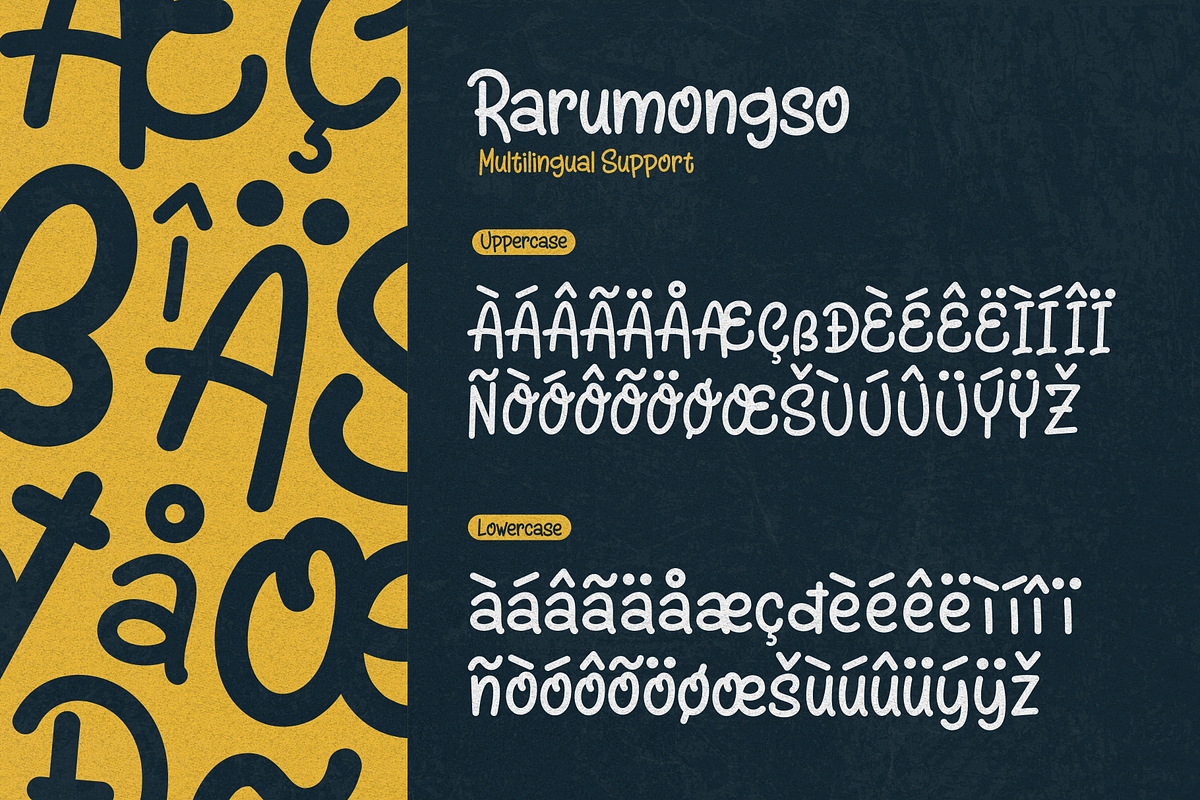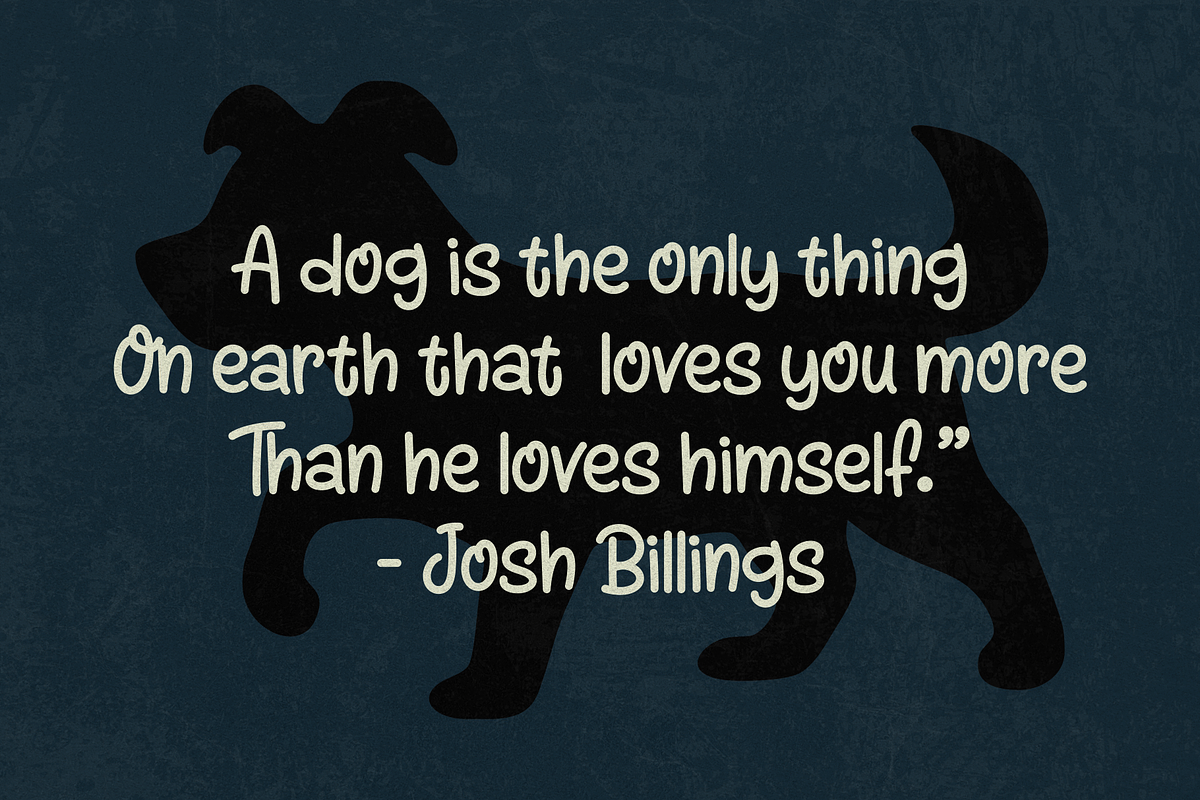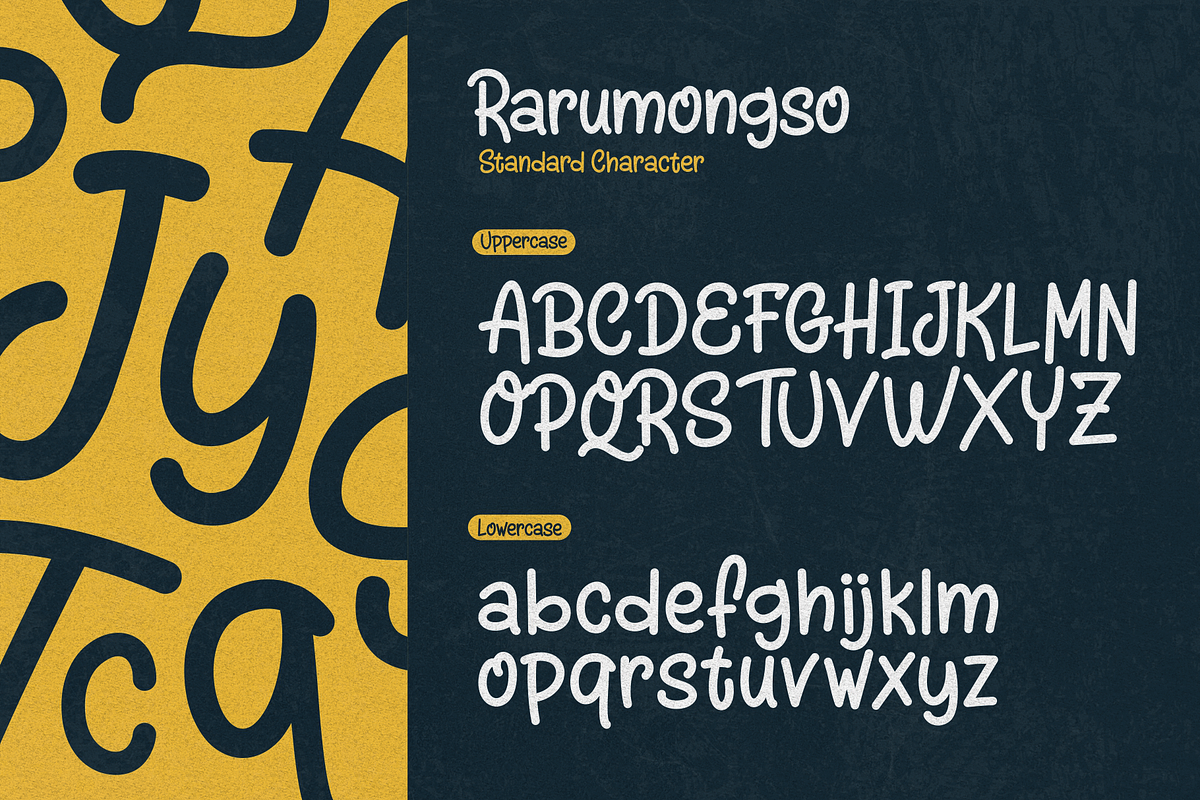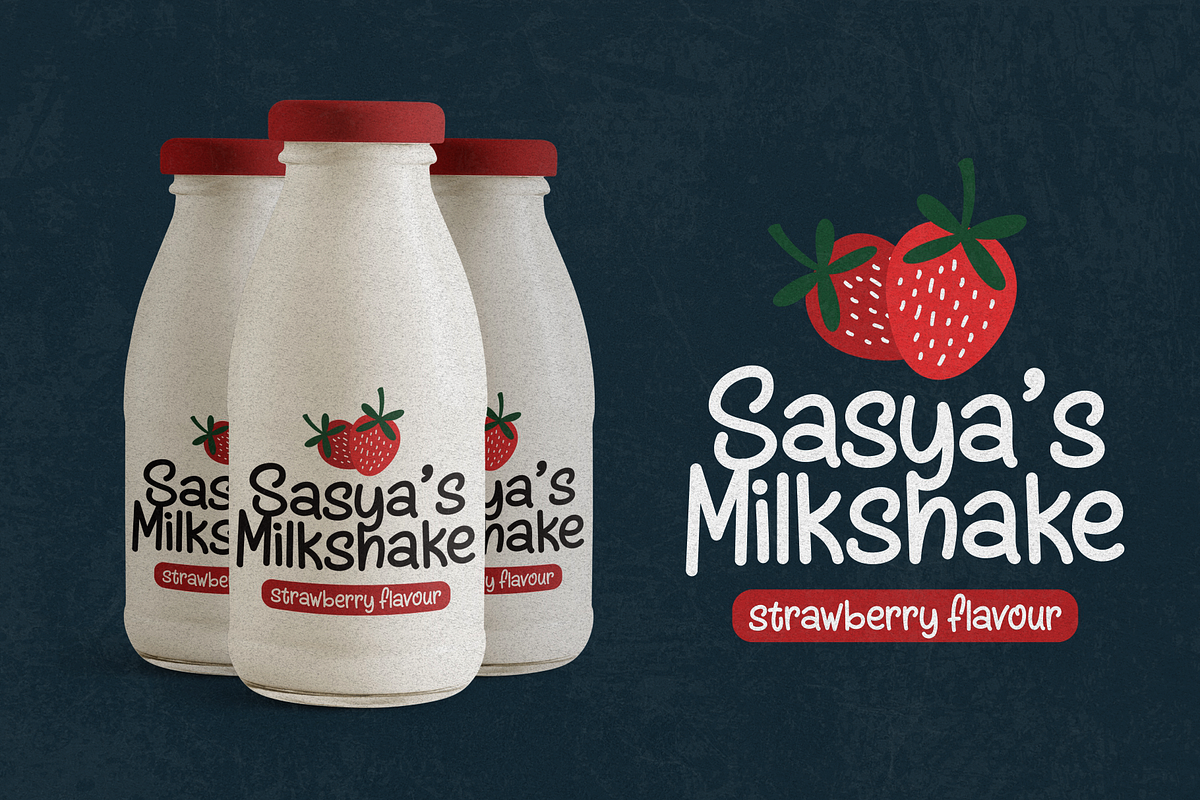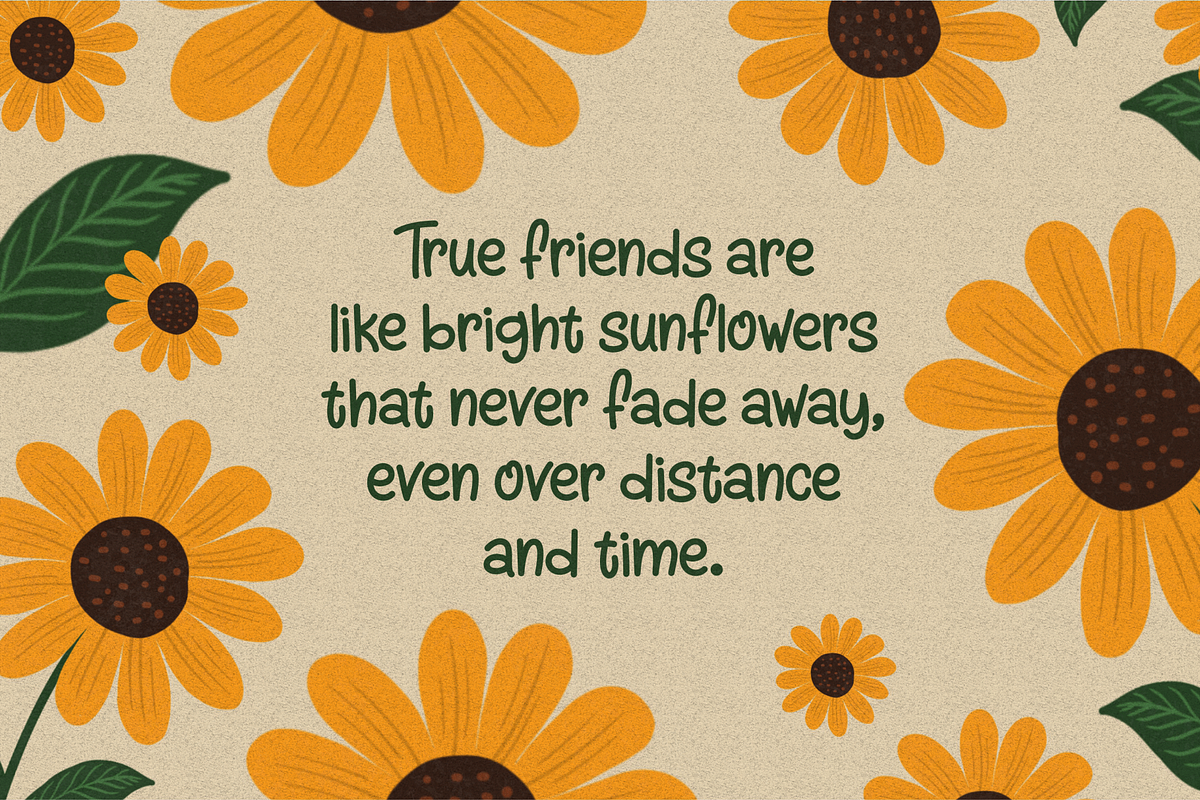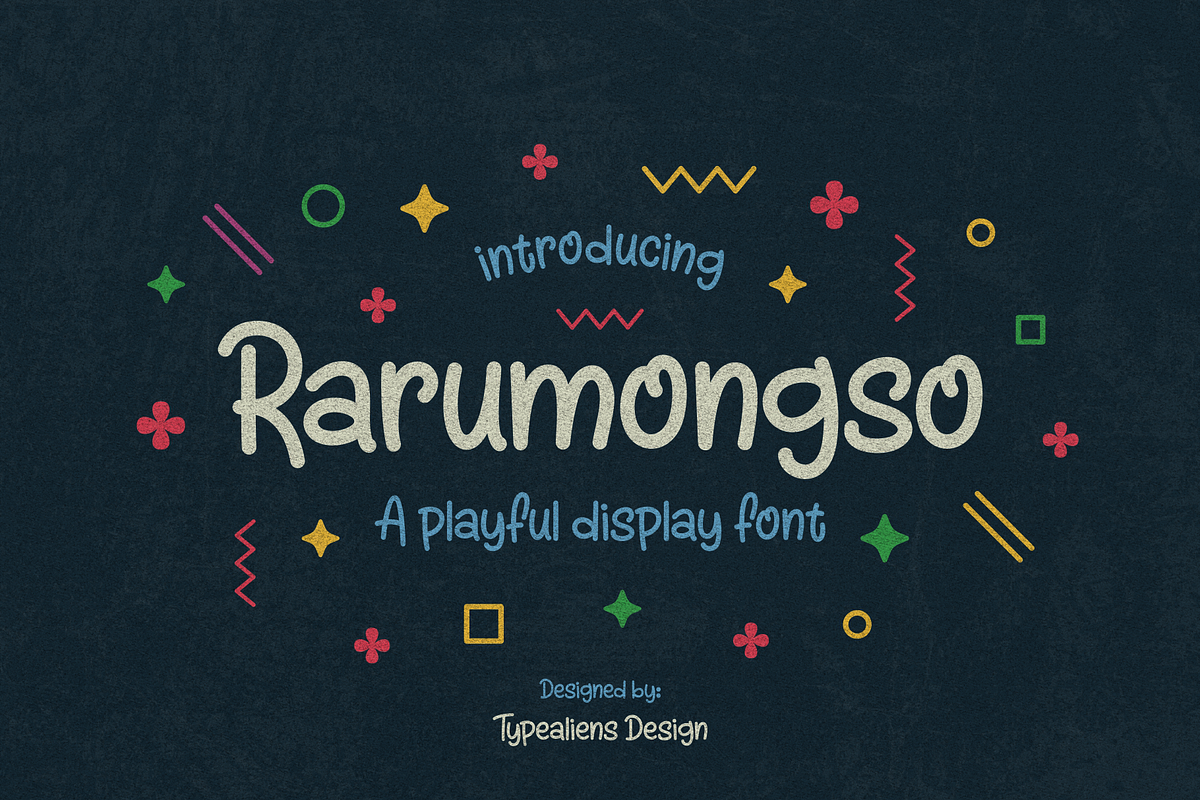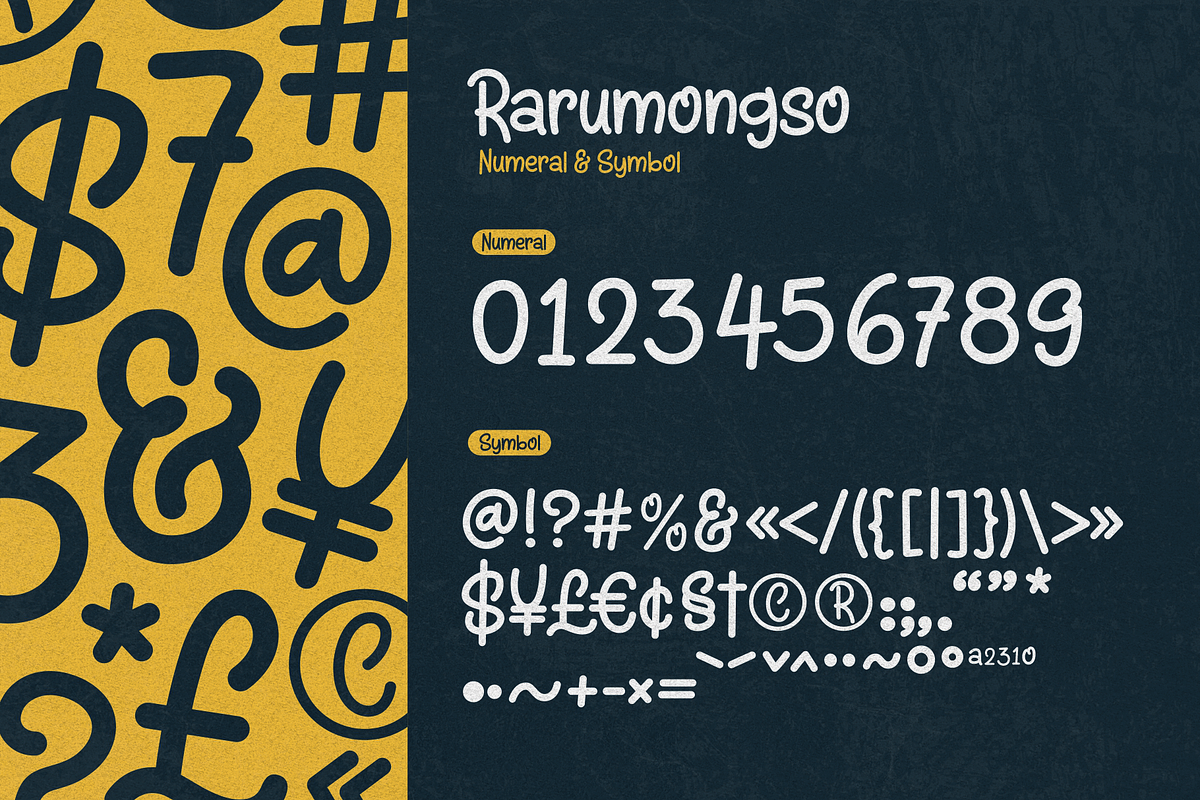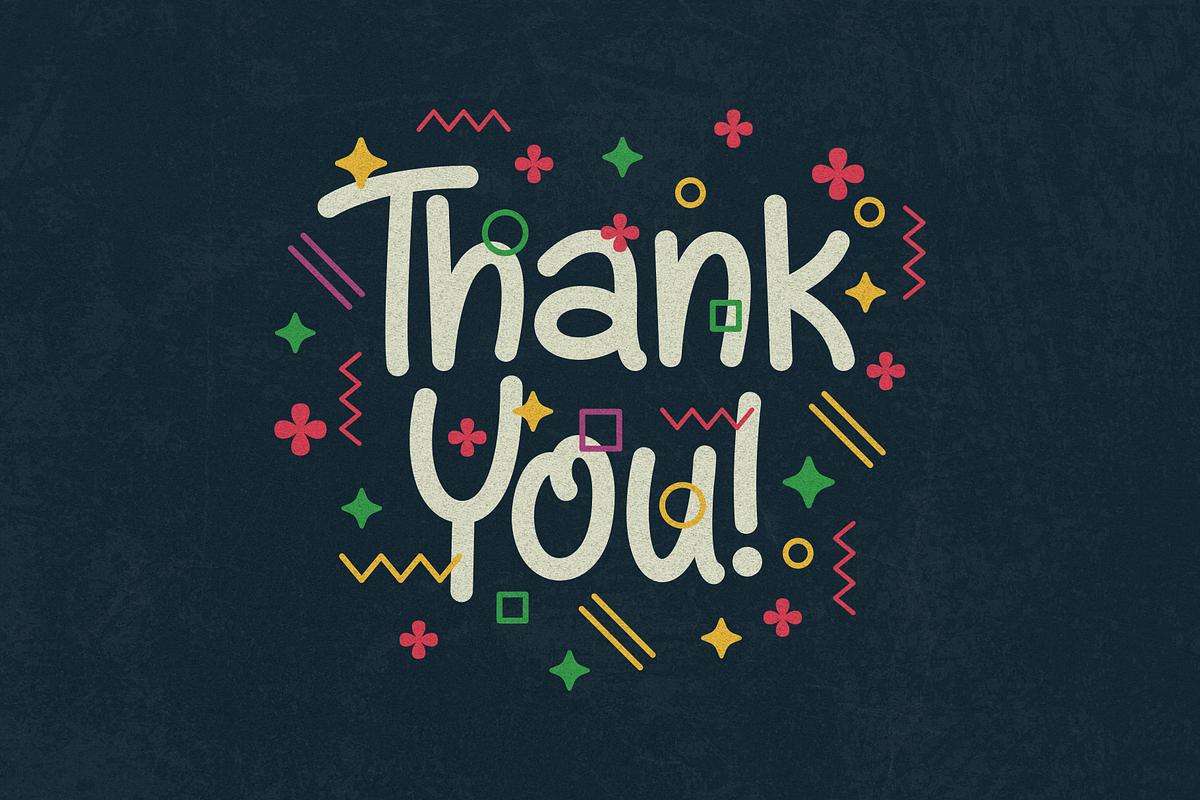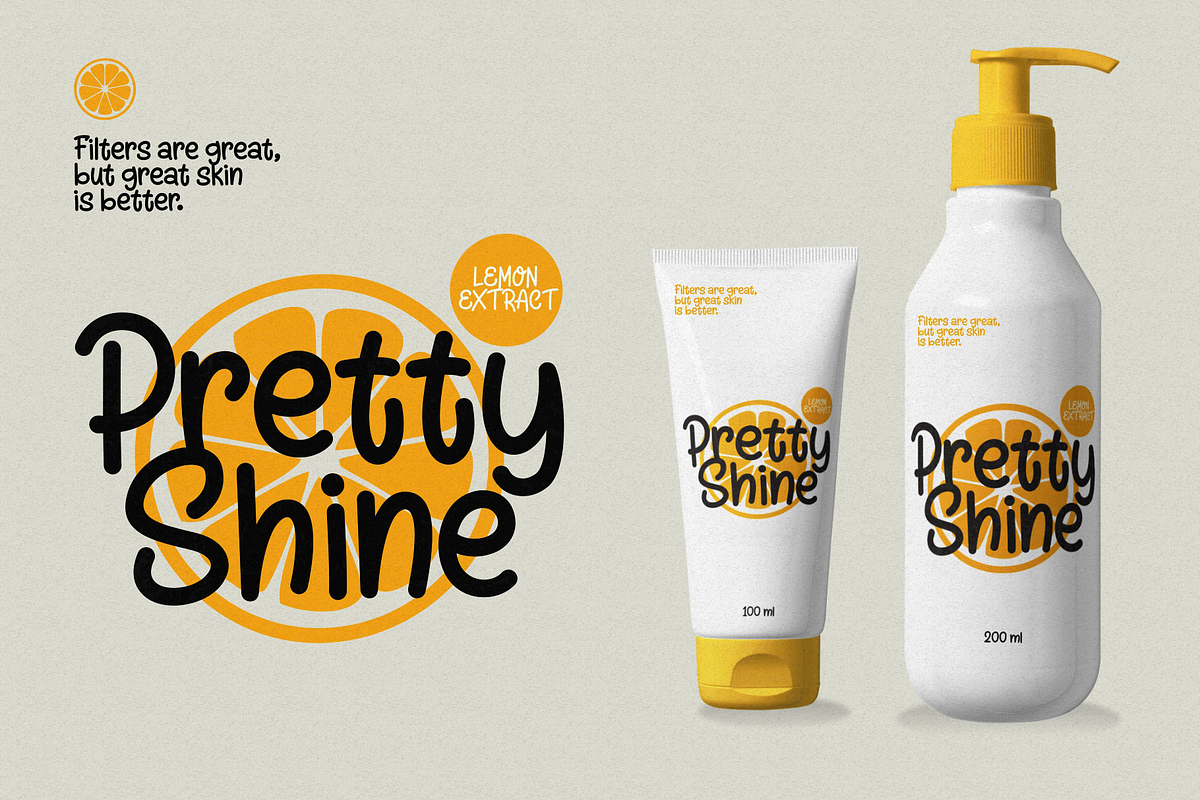
Rarumongso for Kid & Food Brands
RARUMONGSO
Rarumongso is a playful font, the basic font is a slightly thick monoline that has a casual and relaxed nature, very suitable for branding children's goods, such as children's fashion, toys, children's books, etc.